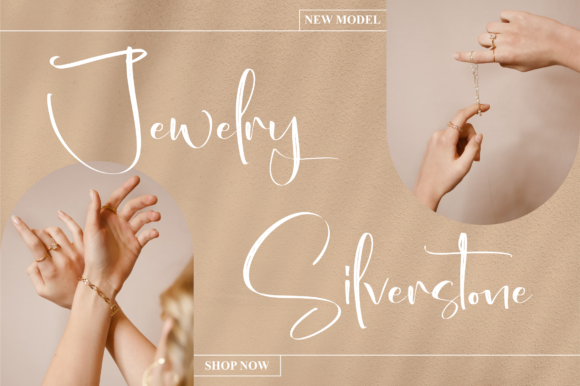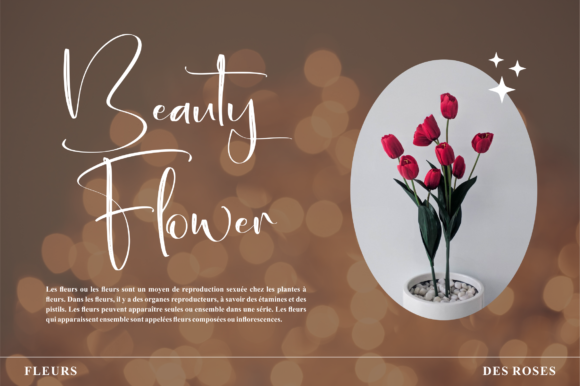
Fantasia Font
db-ku.com - Script & Handwritten -- Fantasia is a delicate, elegant and flowing handwritten font. It has beautiful and well balanced characters and as a result, it matches a wide pool of designs. Add it to your most creative ideas and notice how it makes them come alive!